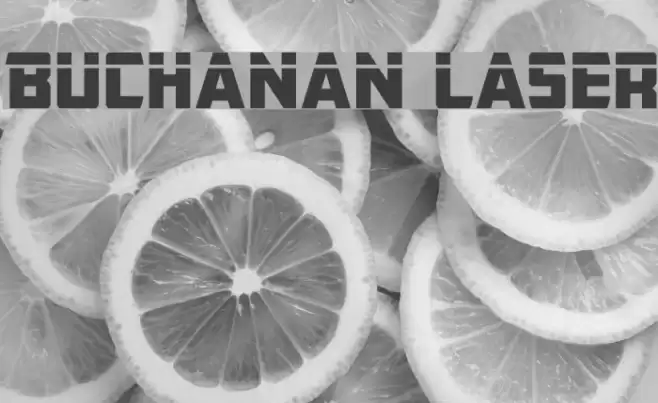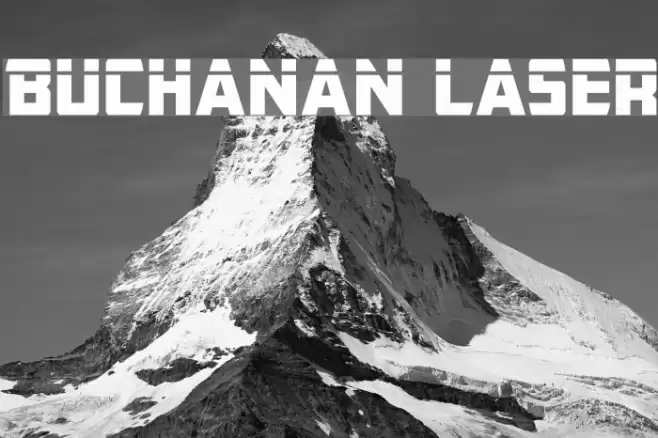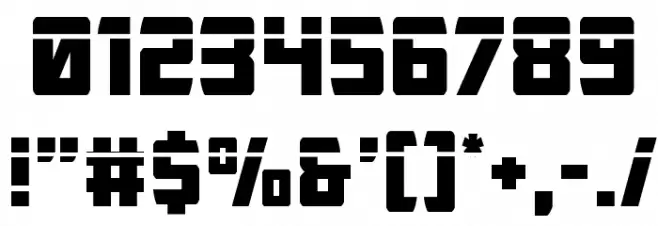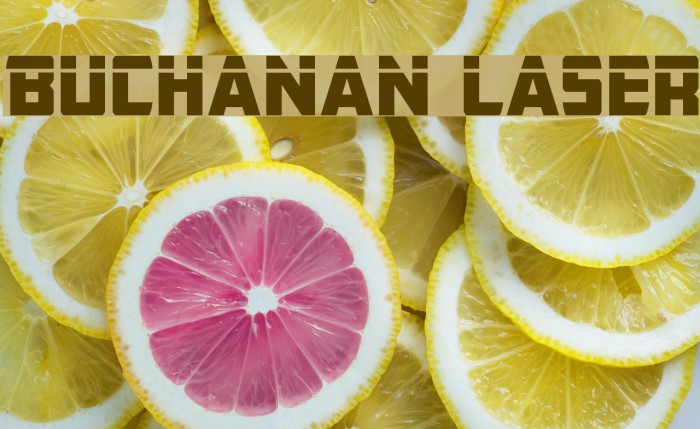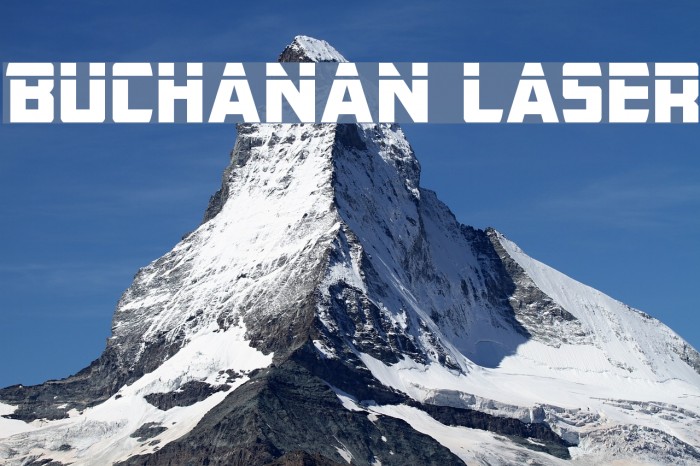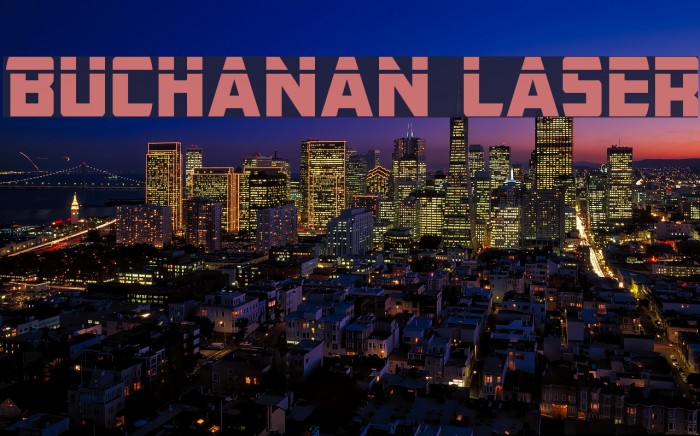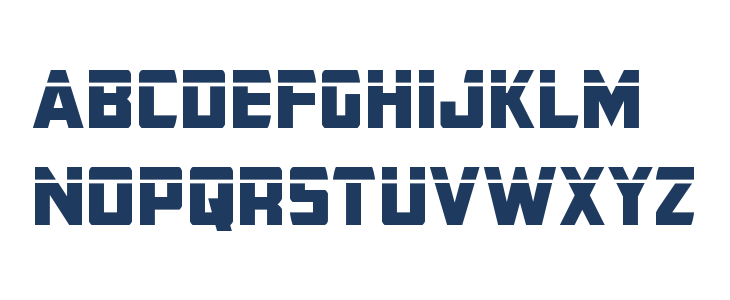
Buchanan Laser Font
Buchanan Laser Description
This font features a bold, geometric design with a futuristic and industrial feel. The characters are constructed with sharp angles and straight lines, giving it a strong and assertive presence. The uppercase letters are uniform in height, while the numbers and special characters maintain the same bold style. The font's design is reminiscent of stencil or laser-cut typography, making it ideal for projects that require a modern and edgy look. Its solid and impactful appearance ensures readability while maintaining a unique aesthetic.
A bold, geometric font with a futuristic and industrial style from Uncategorized fonts.
- Proposed Projects: Ideal for branding, posters, signage, and any project needing a modern, bold statement.